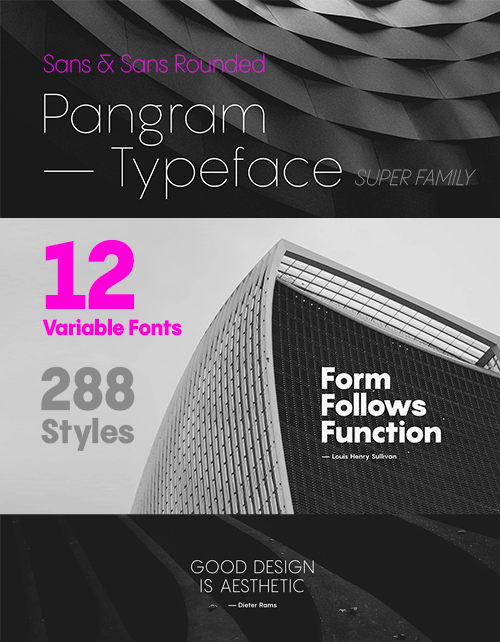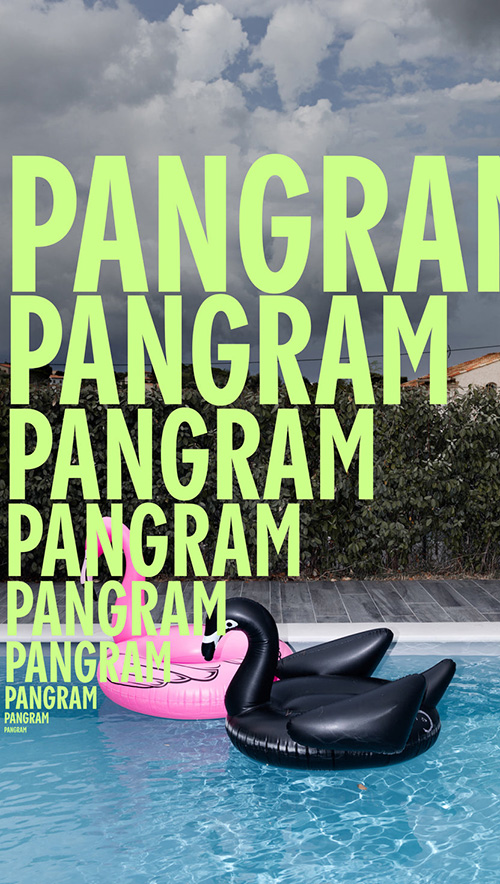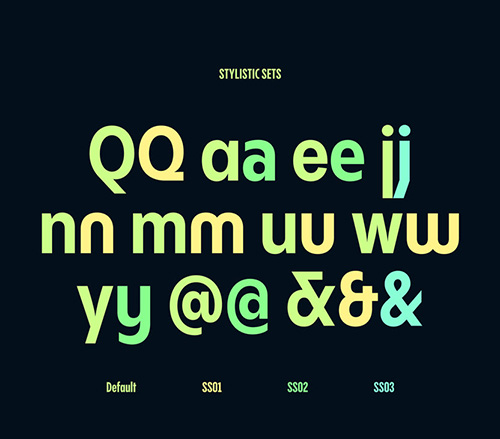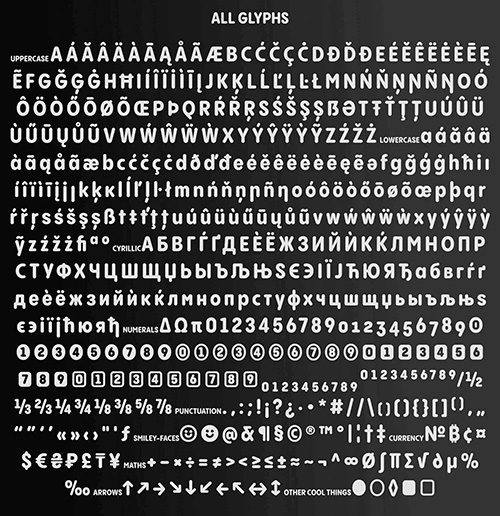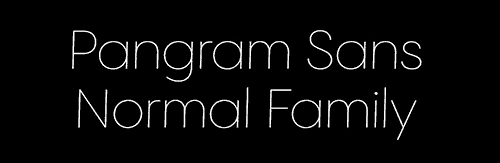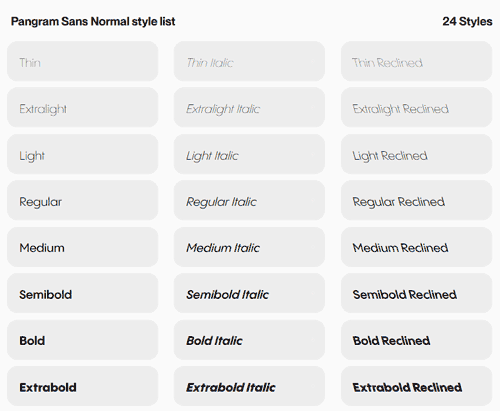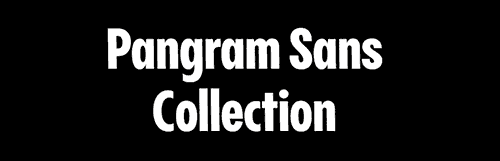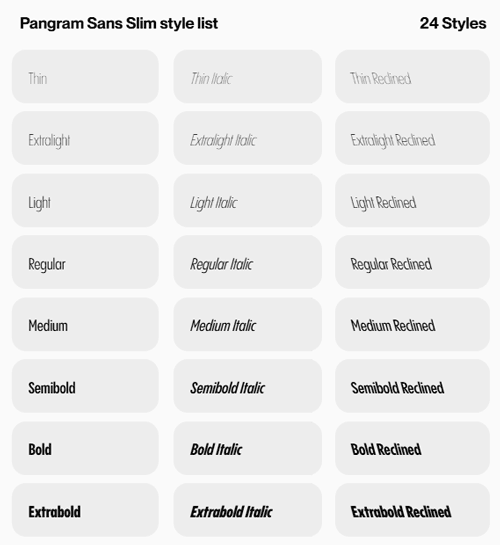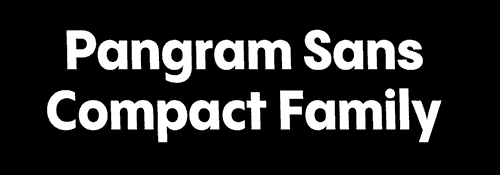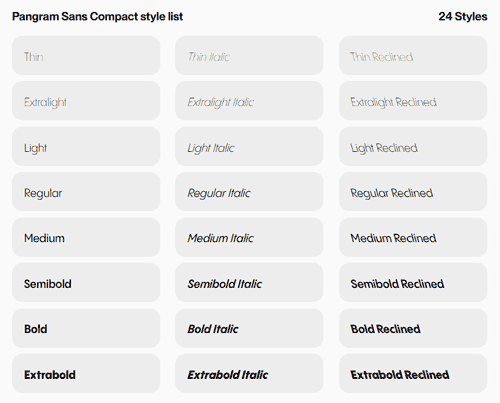
Pangram Sans Super Family - 12 Variable Fonts, 288 Styles!
Pangram Sans SuperFamily - 12 Variable Fonts
Sans & Sans Rounded Families, 6 Subfamilies | 24 Styles Each | Regular, Italic & Reclined
• Pangram Sans: Clean. Confident. Consistent. Pangram Sans is a powerful and extensive geometric workhorse. It was designed to be as bold and intense as it can be subtle and flexible.
• Pangram Sans Rounded: Rounded Off. Dialed In. Pangram Sans Rounded is the more fun and playful sibling of Pangram Sans. It still remains a powerful and extensive geometric workhorse with 144 styles but with a more approachable side.
• Pangram Sans: Clean. Confident. Consistent. Pangram Sans is a powerful and extensive geometric workhorse. It was designed to be as bold and intense as it can be subtle and flexible. We took this free to try geometric sans to a whole new level with a fully variable slanting, from Reclined to Italic. It also includes support for the Cyrillic Alphabet. Inspired by some of the greatest geometric typefaces this complete font family will surely be your next “go to” font to uplift your designs.
• Pangram Sans Rounded: Rounded Off. Dialed In. Pangram Sans Rounded is the more fun and playful sibling of Pangram Sans. It still remains a powerful and extensive geometric workhorse with 144 styles but with a more approachable side. It's in its bolder weights that this typeface truly becomes unique. It also includes support for the Cyrillic Alphabet. Inspired by some of the greatest geometric typefaces, this free to try quality font family will surely be your next “go to” rounded font to uplift your designs.